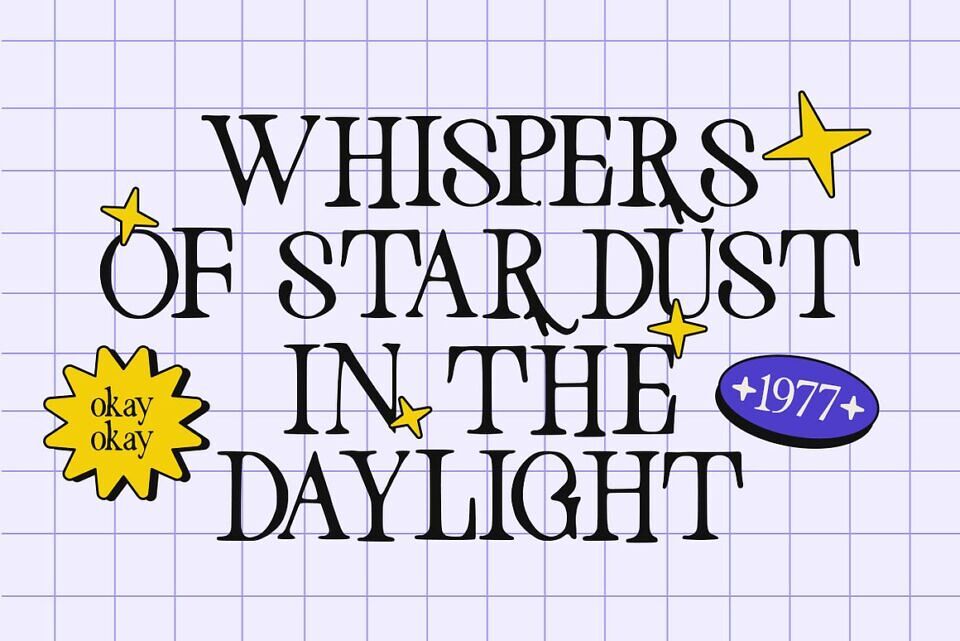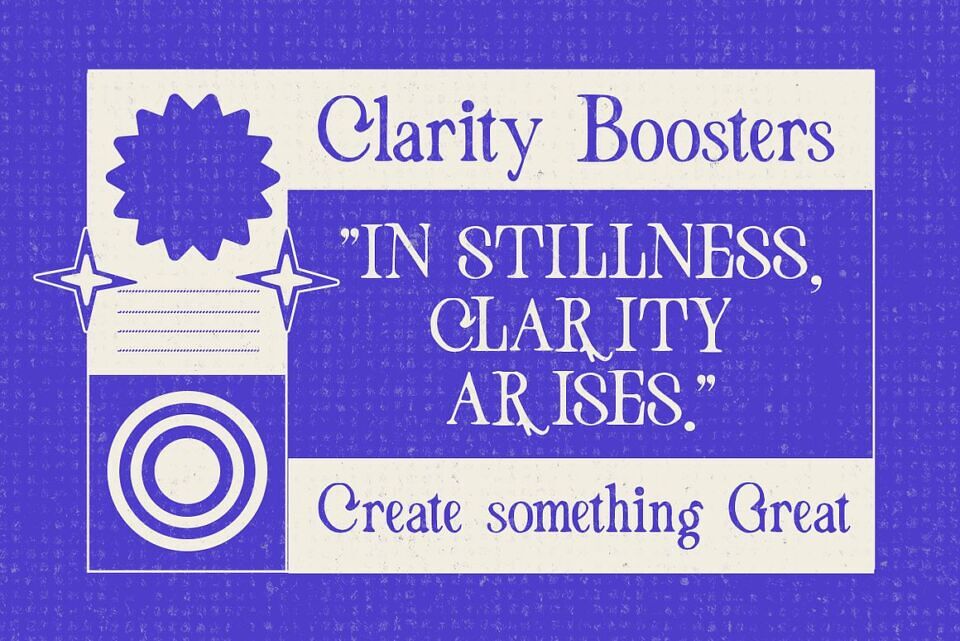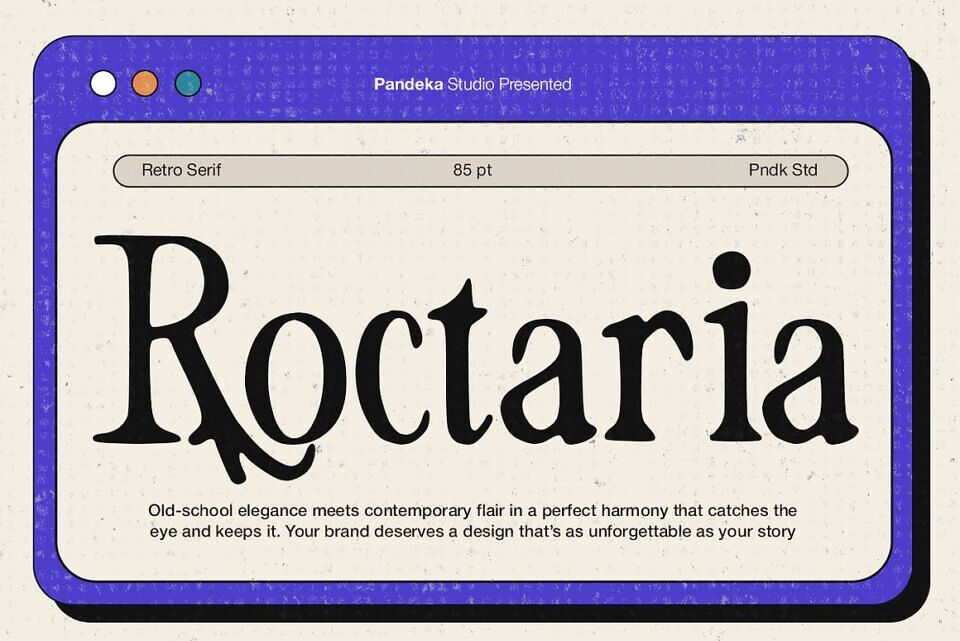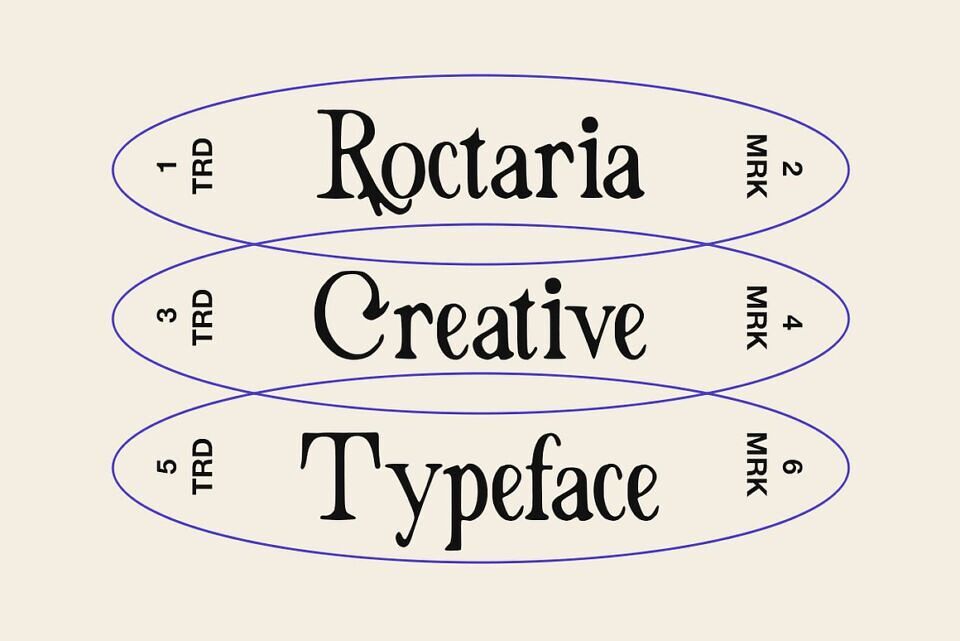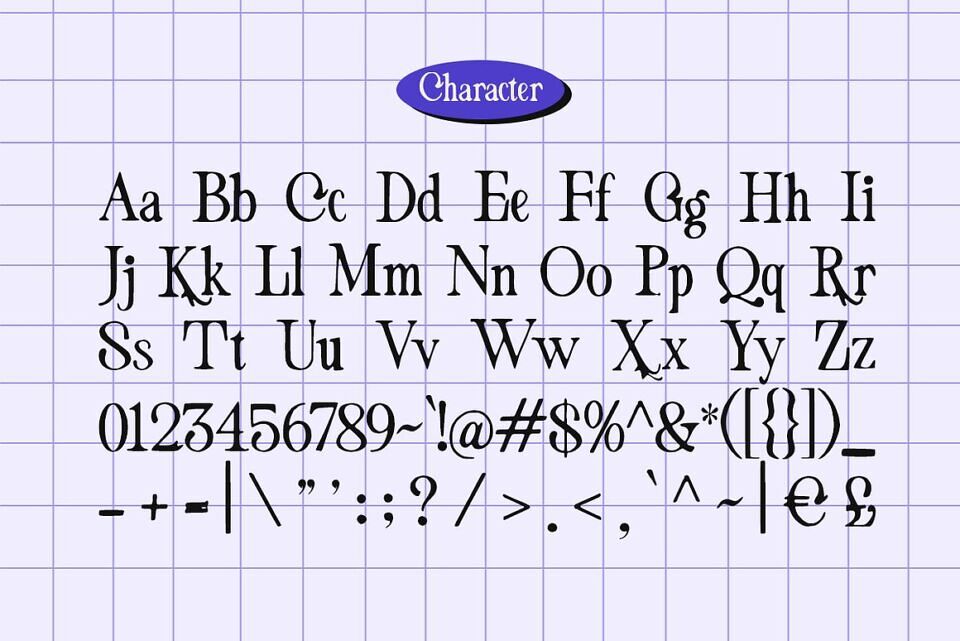
Roctaria is a vintage-inspired serif with a hand-drawn touch, blending classic typography with a timeless design. Its bold lettering and sophisticated style add retro elegance to any project. Perfect for vintage branding, packaging, classic posters, signage, apparel, stickers, and editorial layouts, Roctaria brings a unique, nostalgic aesthetic to your designs.